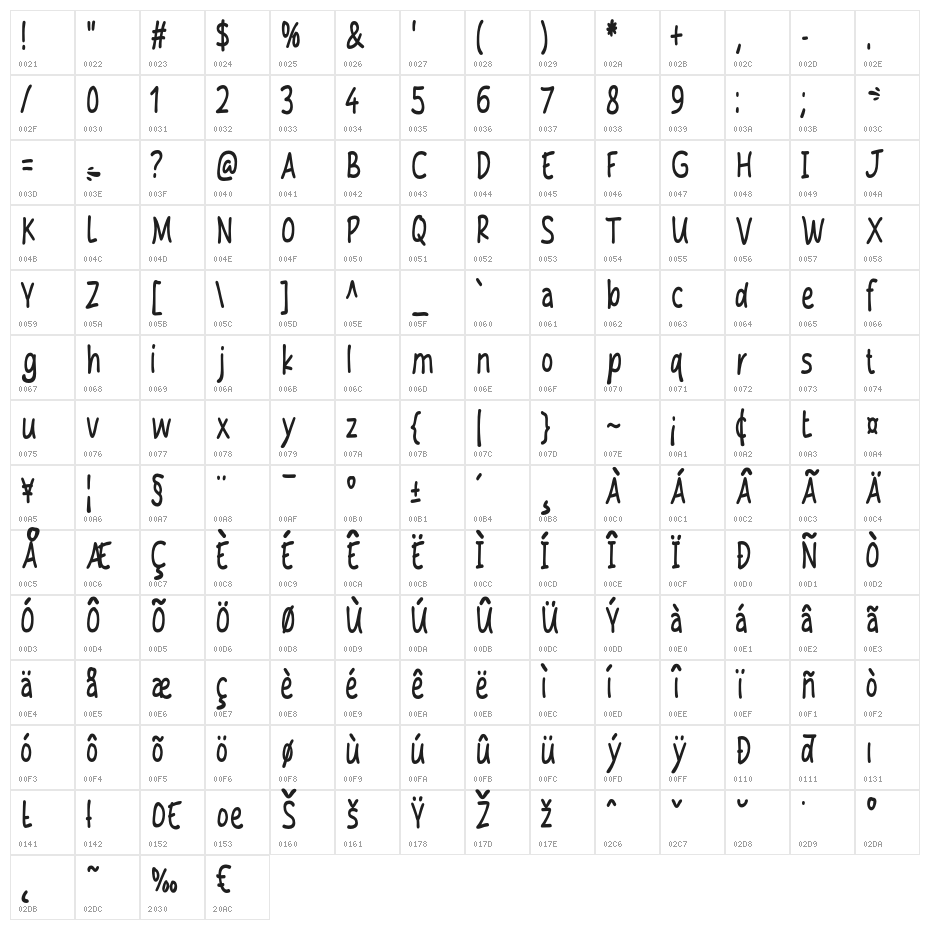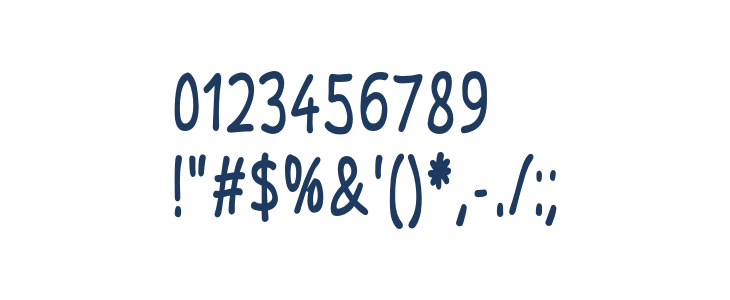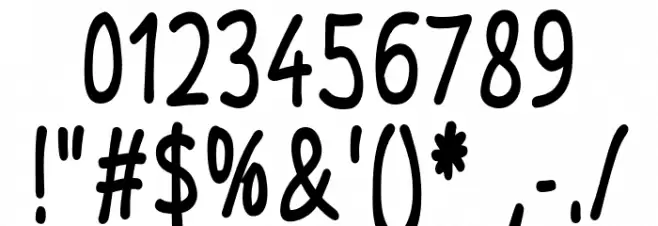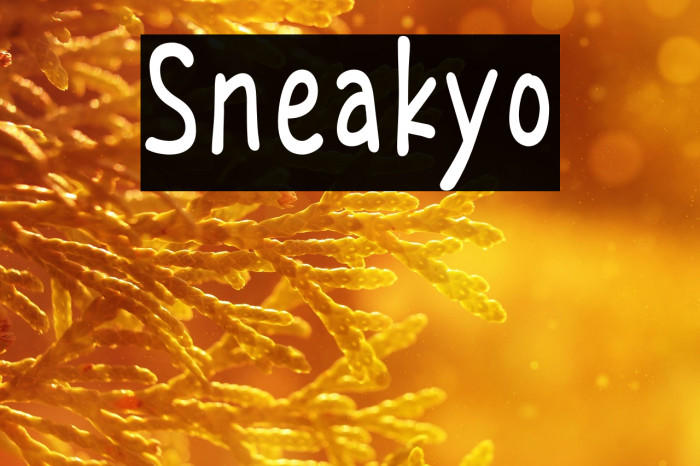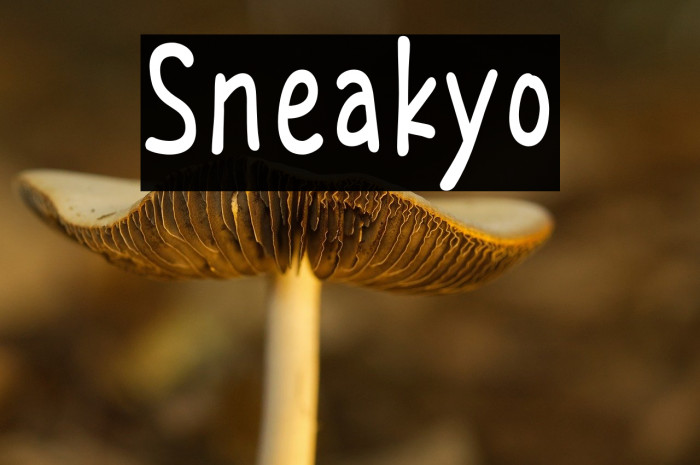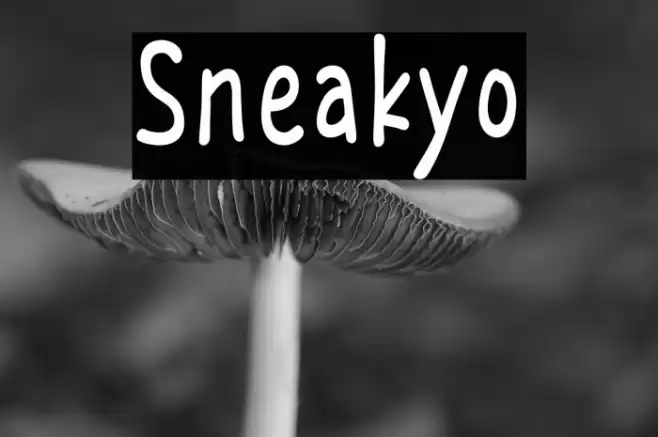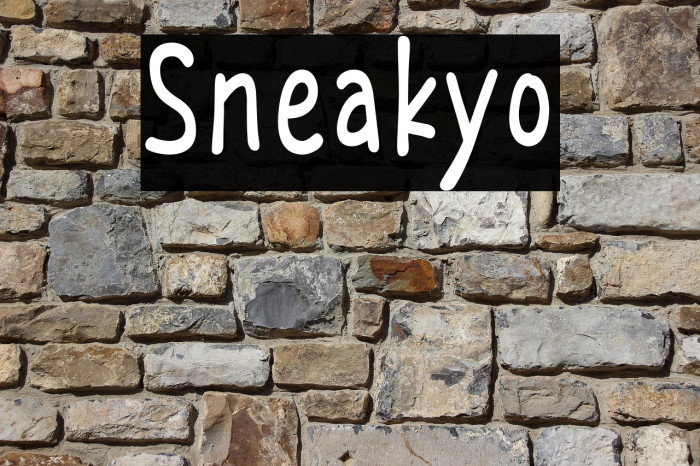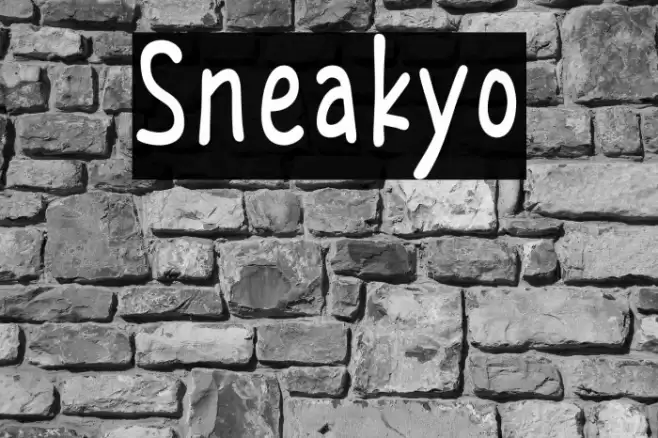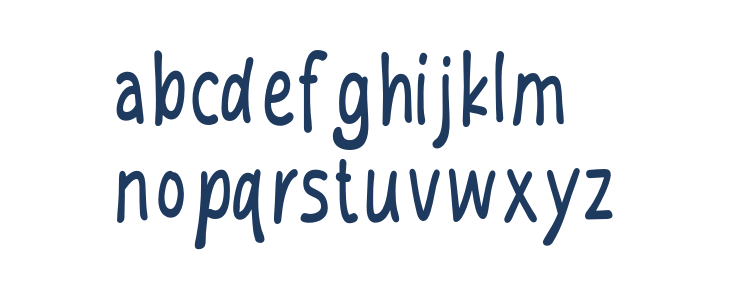
Sneakyo Font
Sneakyo Description
This playful and informal font features a handwritten style that exudes a casual and friendly vibe. The characters are slightly irregular, adding a touch of whimsy and personality. The strokes are consistent in weight, providing a uniform appearance while maintaining a hand-drawn feel. The rounded edges contribute to its approachable and warm aesthetic, making it suitable for projects that require a personal touch. The font includes a full set of uppercase and lowercase letters, numbers, and a variety of special characters, ensuring versatility in design applications.
| Use Case | Logos, Headlines, Informal text |
| Proposed Projects | Ideal for children's books, greeting cards, casual branding, and social media graphics. |